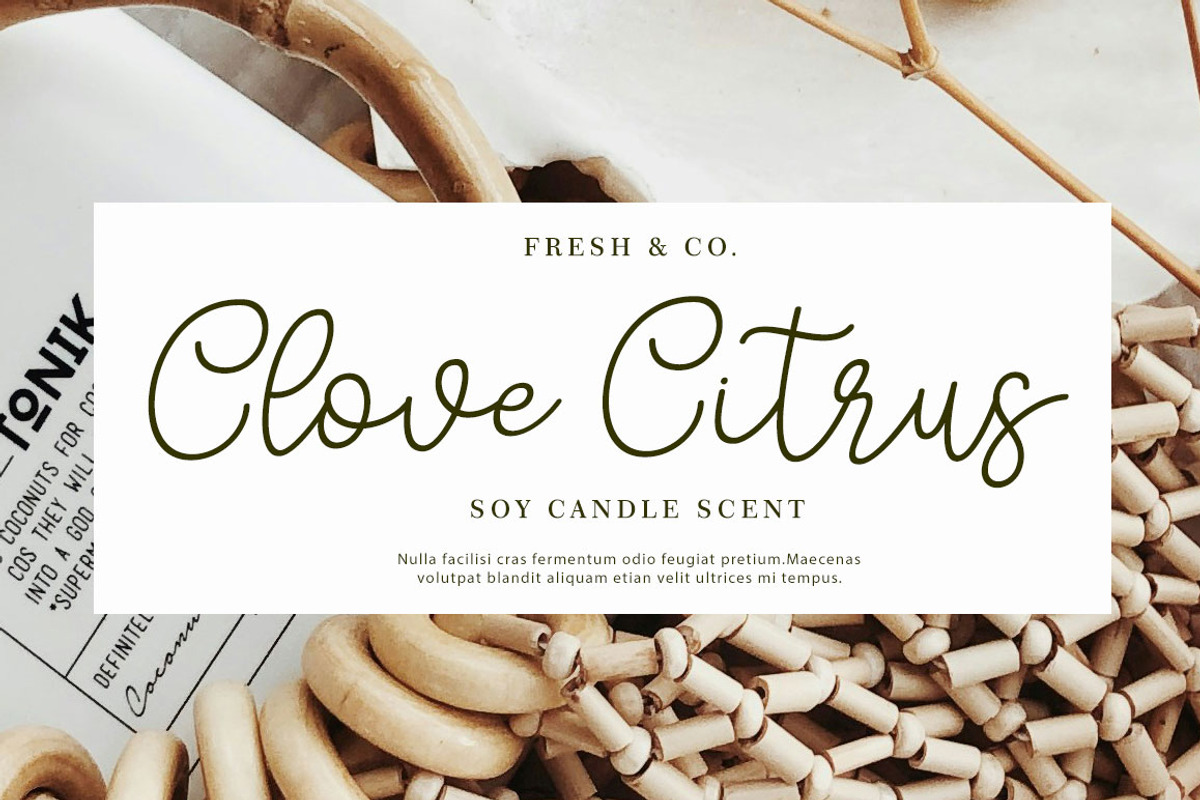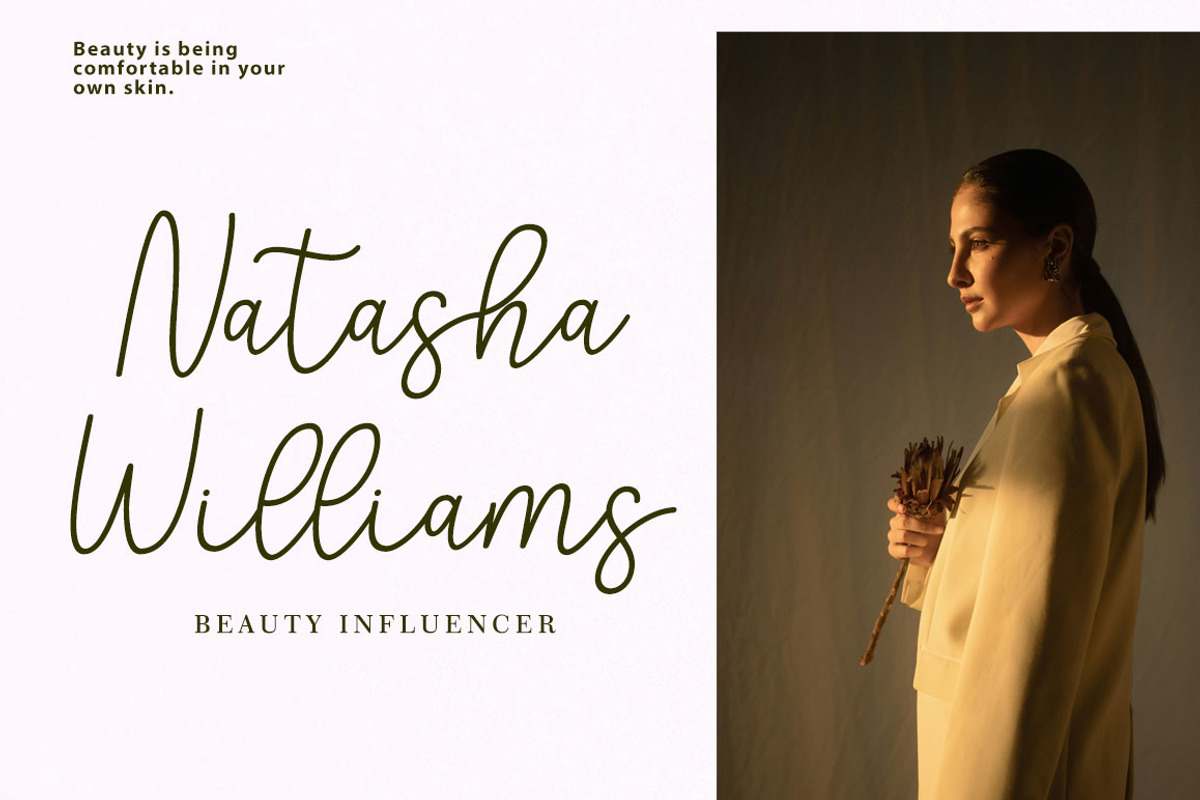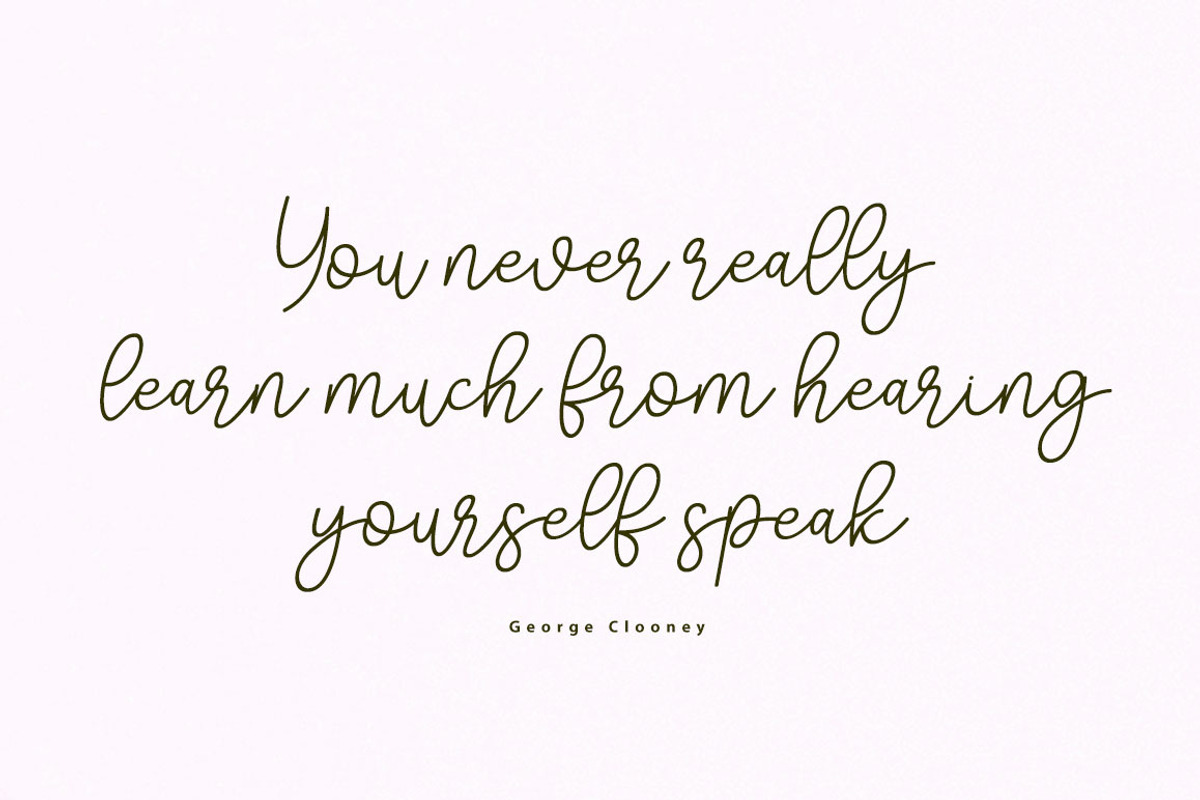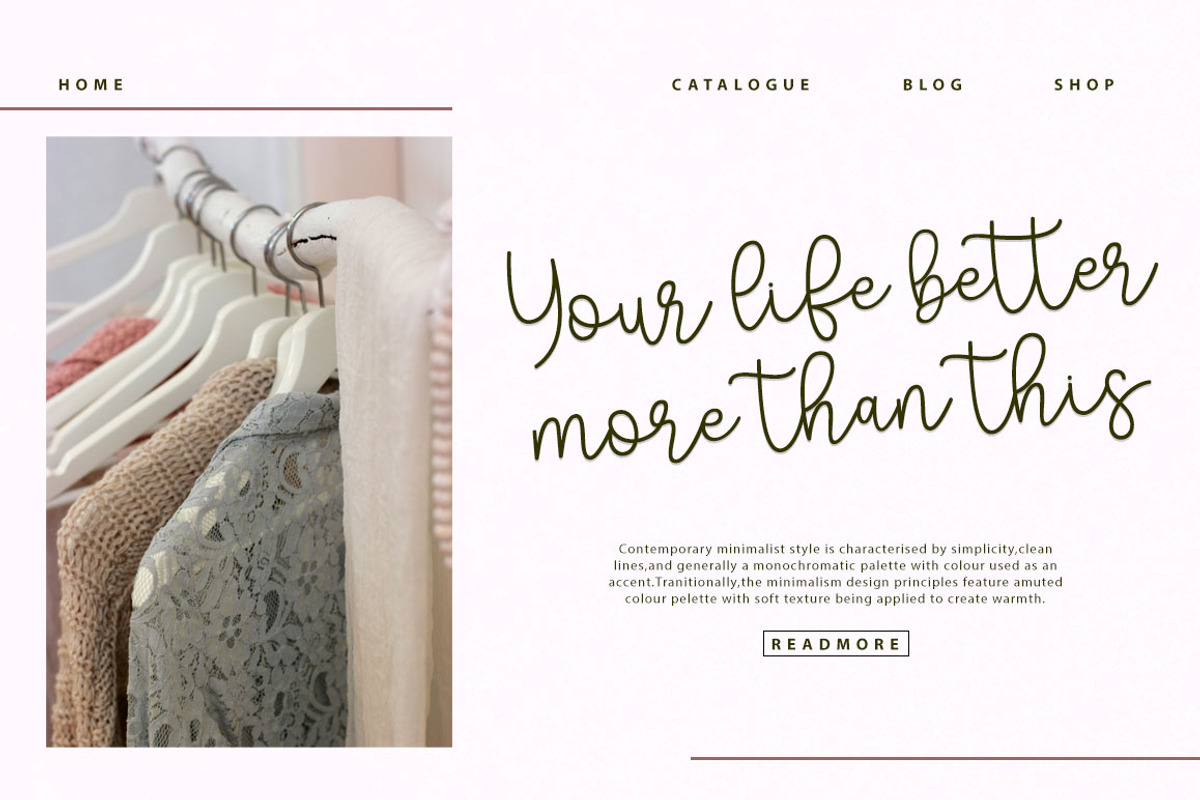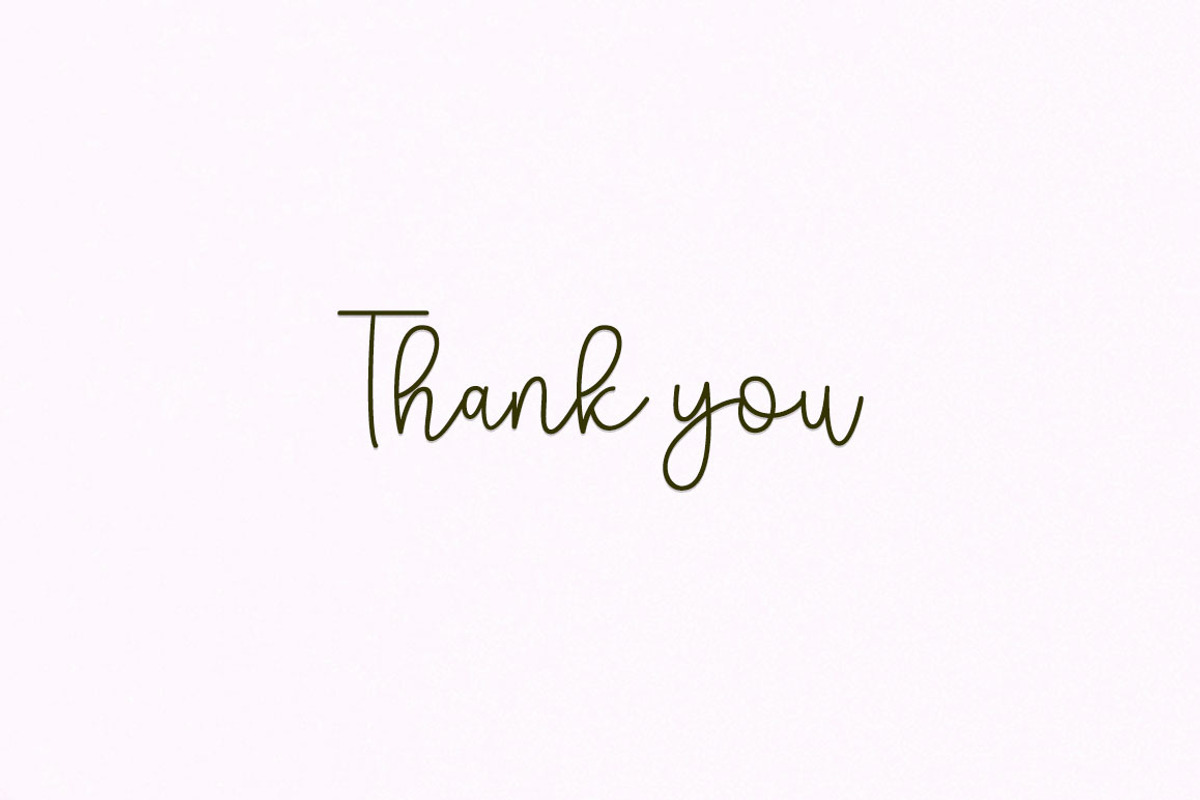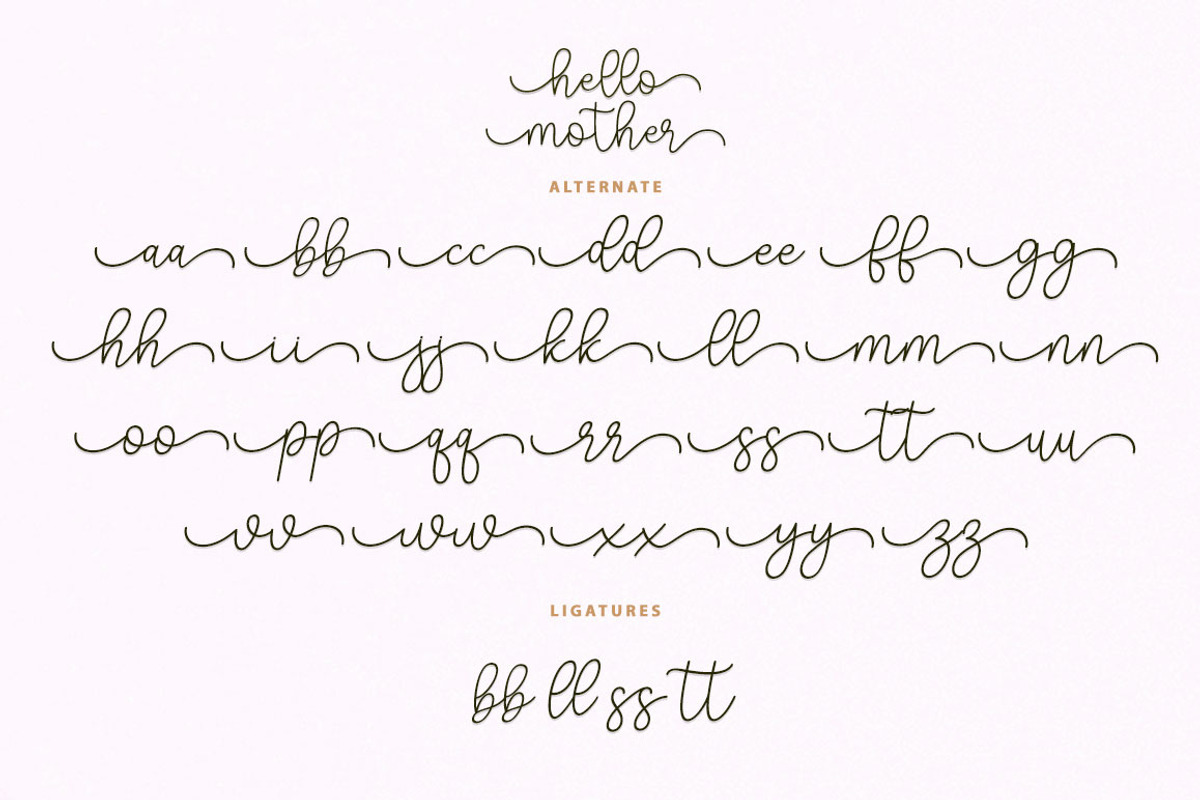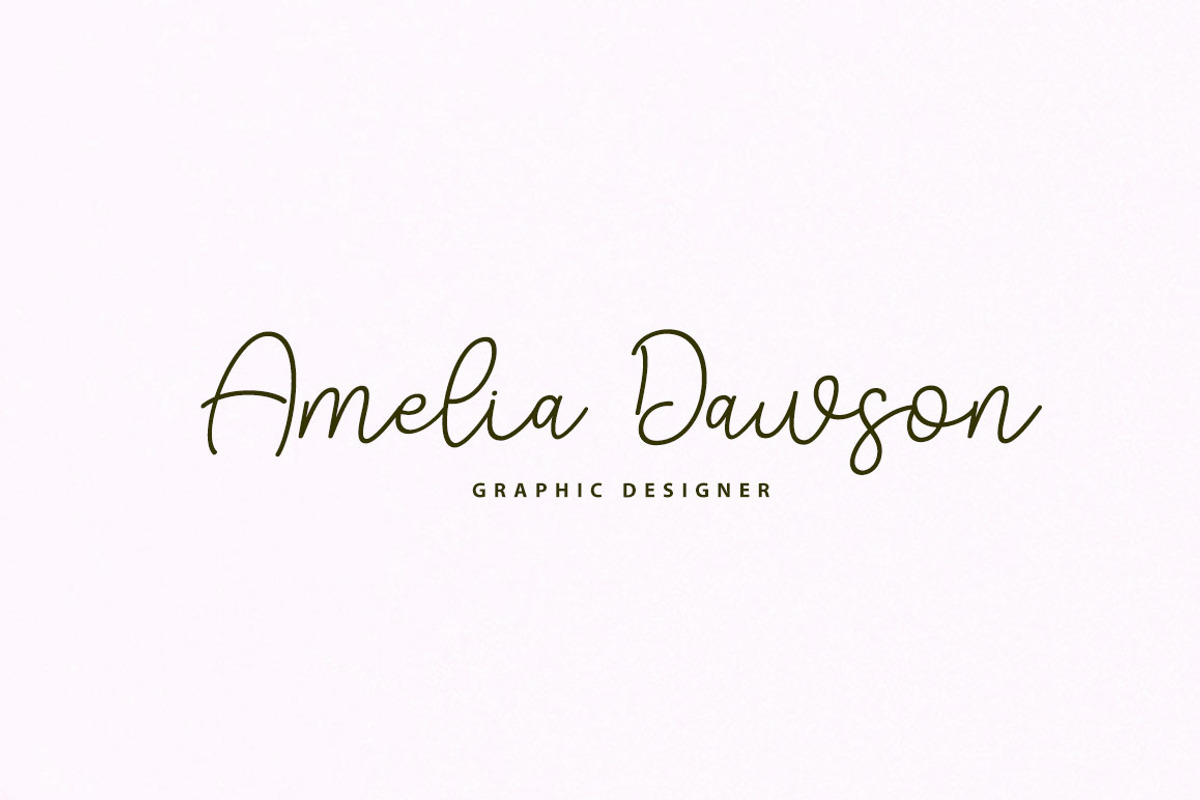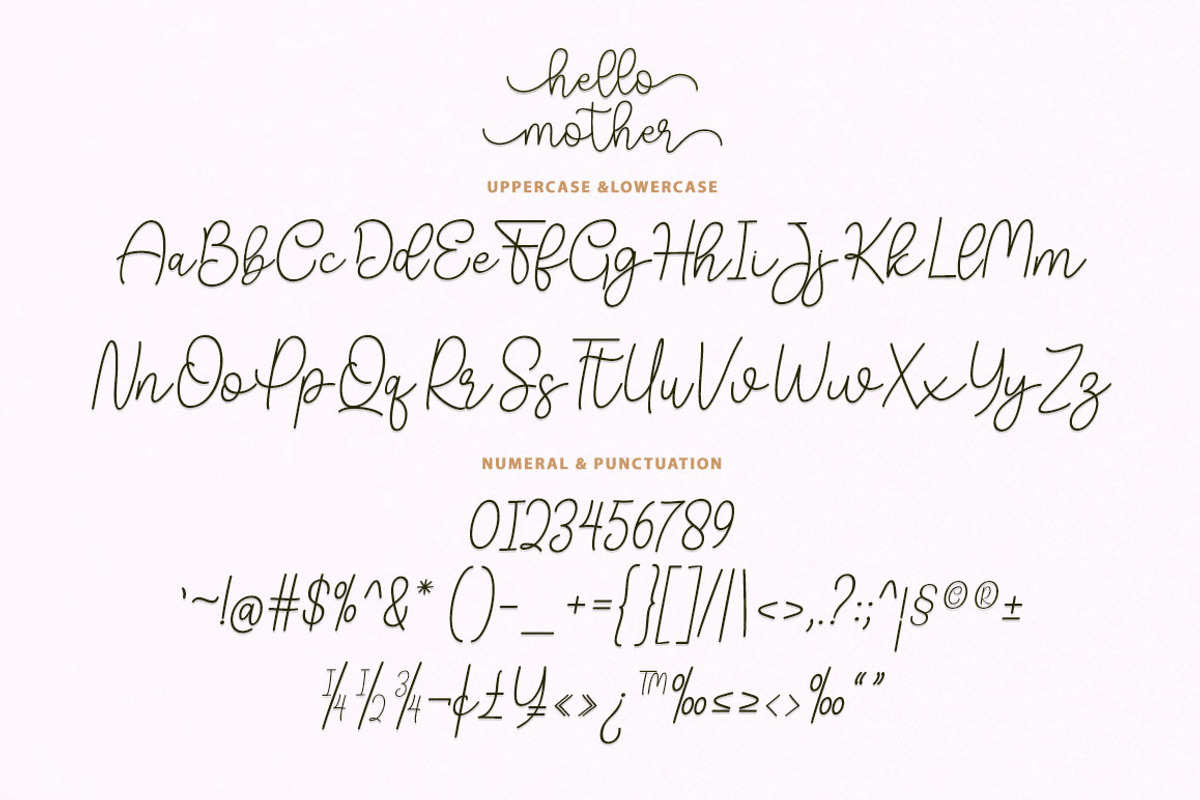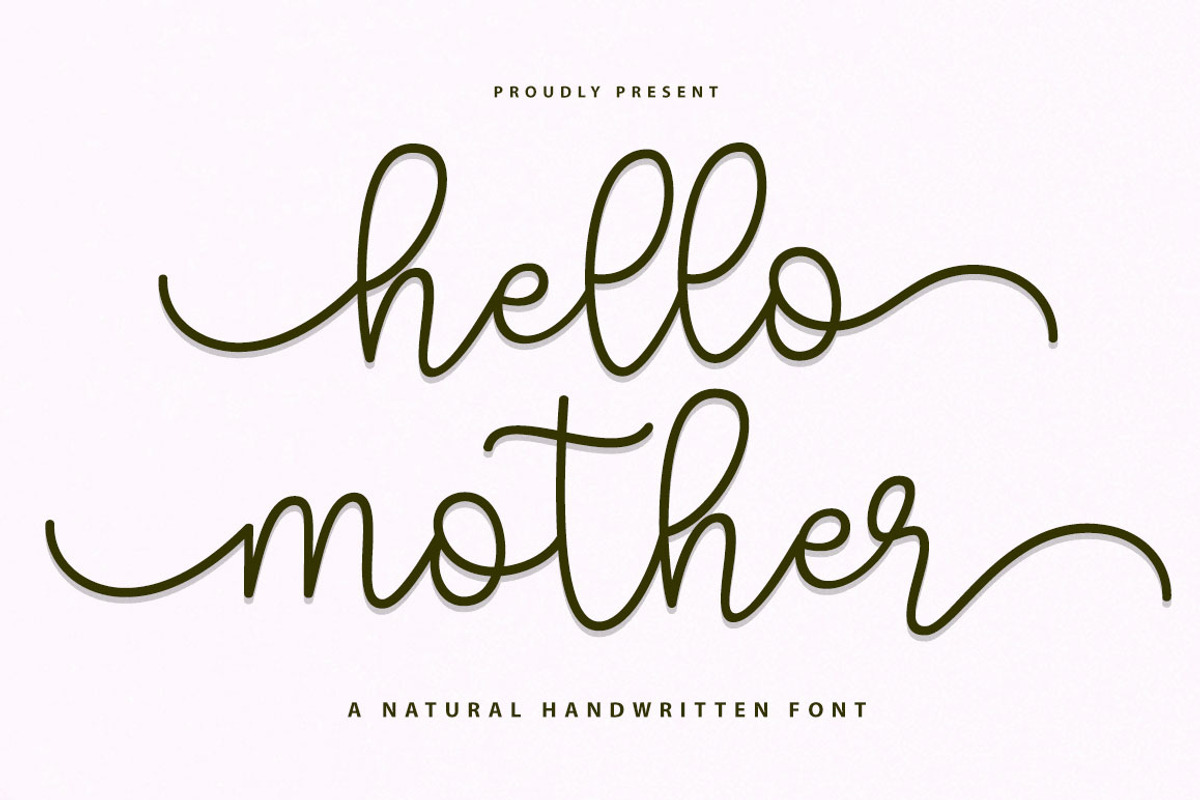
Hello Mother
Hello Mother Script - Handwritten Script Font
Hello Mother Script is a handwritten script font, this font is perfect for logos, invitations, stationery, wedding designs, social media posts, advertisements, product packaging, product designs, labels, photography, watermarks, special events, or anything else.
Hello Mother Script comes with a complete set of upper and lower case letters, lower case strokes, multilingual symbols, numbers, punctuation.